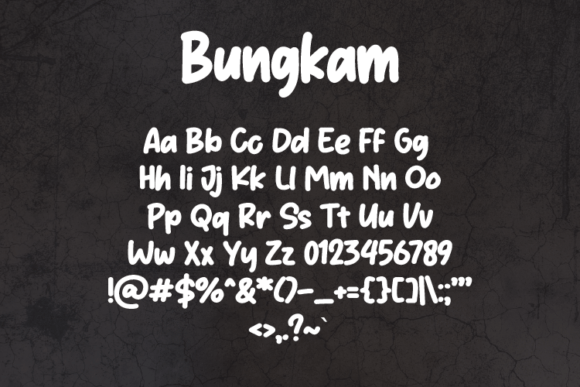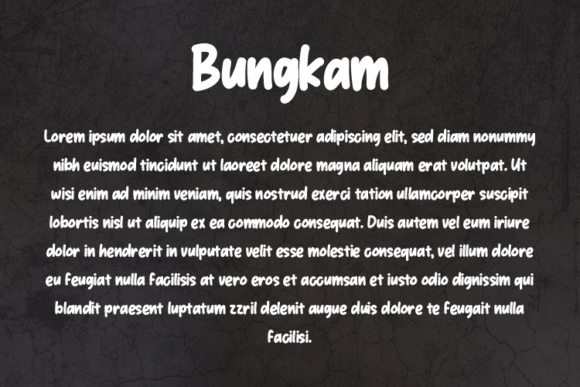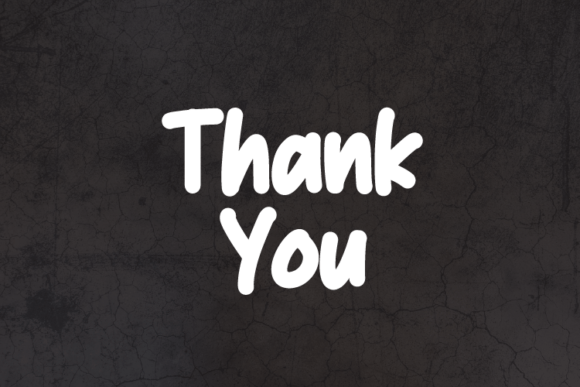
Bungkam Font: Elevate Your Designs with Modern Elegance
In the world of typography, a font can make or break a design. For designers and crafters seeking a modern and elegant typeface that offers flexibility and excellent readability, Bungkam Font is an exceptional choice. This comprehensive guide explores the features, benefits, and applications of Bungkam Font, highlighting its potential to elevate your designs across various media.
What is Bungkam Font?
Bungkam Font is a contemporary typeface designed to provide a perfect balance of style and functionality. Its clean lines, elegant curves, and versatile design make it an ideal choice for a wide range of applications, from digital media to print materials. Whether you’re working on a branding project, creating marketing materials, or crafting digital content, Bungkam Font is engineered to deliver exceptional results.
Key Features of Bungkam Font
- Modern and Elegant Design: Bungkam Font boasts a sleek and sophisticated design, making it perfect for projects that require a touch of elegance and refinement.
- Excellent Readability: The font’s clear and legible design ensures that your text remains easy to read, even at smaller sizes, across various devices and media.
Benefits of Using Bungkam Font
Bungkam Font offers numerous benefits that make it an attractive choice for designers and crafters. Some of the key advantages include:
- Time-Saving: With its excellent readability and versatile design, Bungkam Font saves you time and effort in selecting and adjusting fonts for various projects.
- Professional Look and Feel: The modern and elegant design of Bungkam Font gives your projects a professional and polished appearance, making them stand out from the competition.
Applications of Bungkam Font
Bungkam Font’s versatility makes it suitable for a wide range of applications, including:
- Branding and Marketing Materials: Use Bungkam Font to create stunning logos, brochures, business cards, and other marketing materials that require a modern and elegant touch.
- Digital Content: Bungkam Font is perfect for digital content creators, including bloggers, YouTubers, and social media influencers, who need a readable and stylish font for their online content.
- Print Materials: From flyers and posters to magazines and books, Bungkam Font is an excellent choice for any print project that requires a high level of readability and aesthetic appeal.
Bungkam Font is a modern and elegant typeface that offers flexibility, excellent readability, and superior cross-platform compatibility. Its .otf file format and versatility make it an ideal choice for designers and crafters working on various projects, from branding and marketing materials to digital content and print materials. With Bungkam Font, you can elevate your designs and create stunning visual content that stands out from the competition.